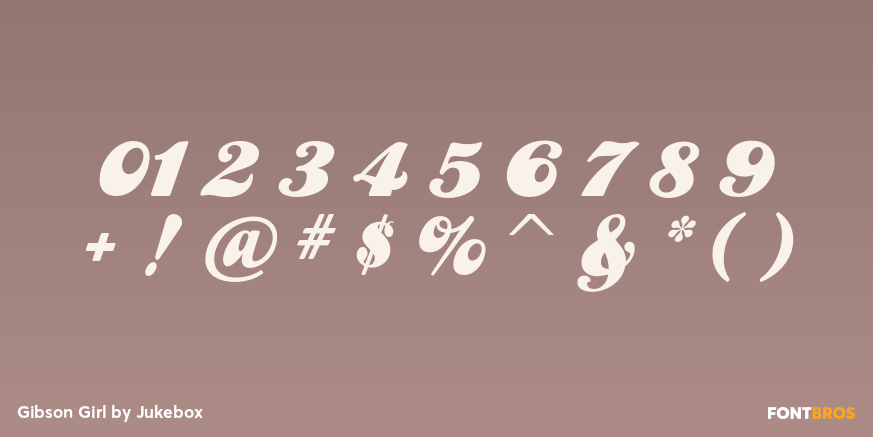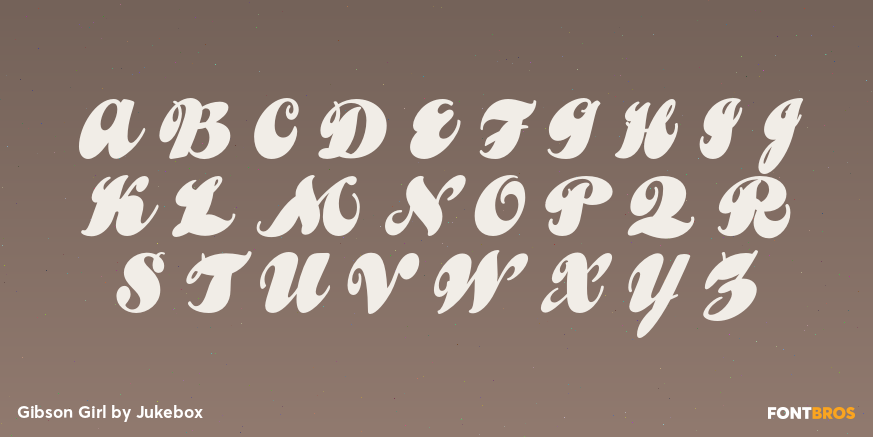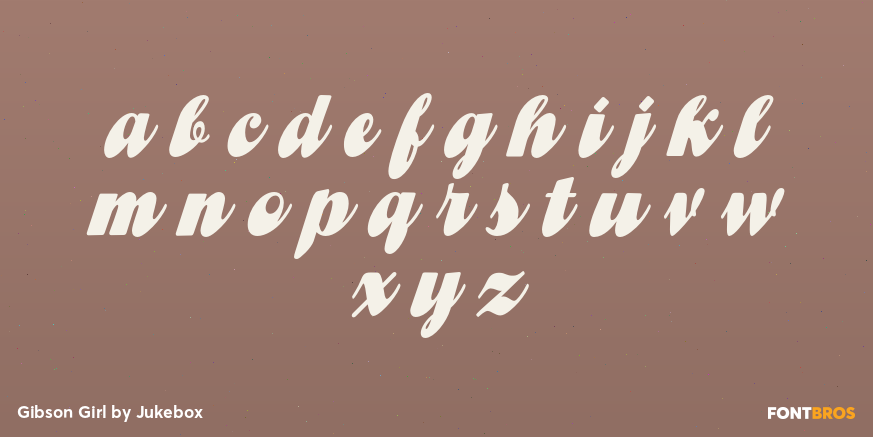
Gibson Girl
Font Family by Jukebox
Gibson Girl is a heavy script font with an 1890s flair. During the end of the 19th Century, the "Gibson Girl" created by illustrator Charles Gibson, was considered the ideal of feminine beauty and poise in that time period. The term has become associated with the Gilded Age in America. The design of the Gibson Girl font reflects both femininity and self confidence.